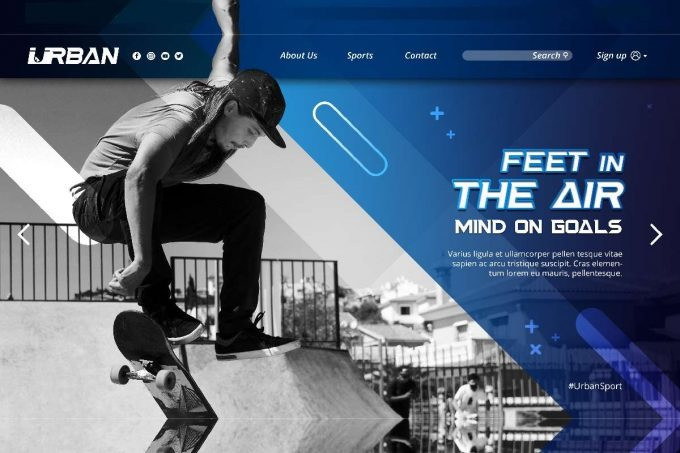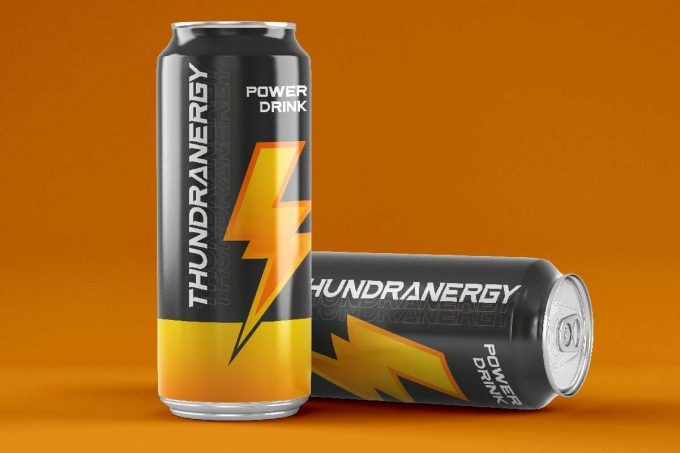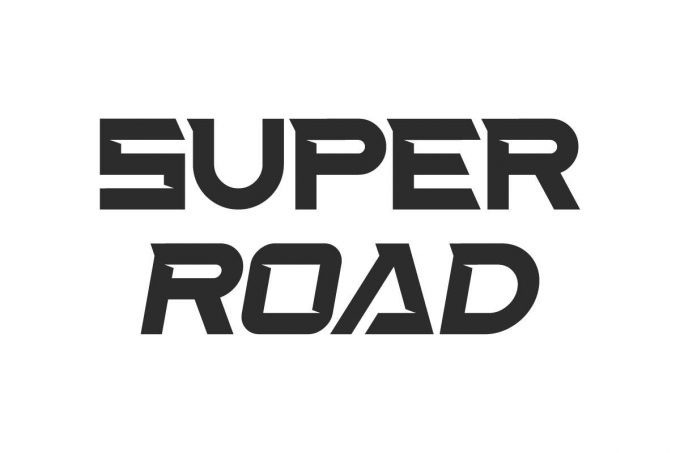
Bloviate Display Font
Bloviate is a simple calligraphict script font. The style of this font are classic, elegant, luxury, glamour and simple brush lettering.